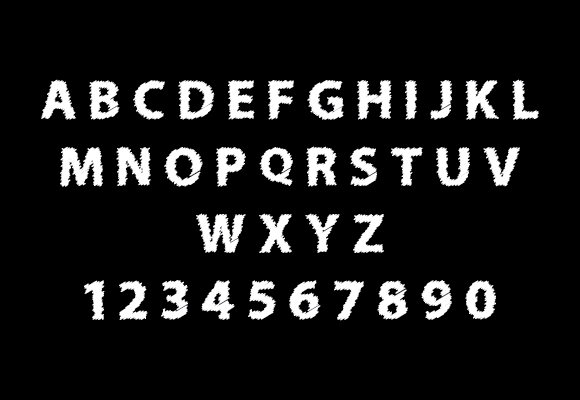
Introduction to Rafsan Font Font
Fonts play a crucial role in design, and the Rafsan Font font is a typeface that brings both character and versatility to any project. Whether you’re working on a branding project, a website, or a print design, the Rafsan Font font offers a unique style that can elevate your work.
Rafsan Sketched Scribe is a striking, modern decorative font inspired by the scribe effect.
Add it confidently to your creative projects and notice how it makes them stand out from the crowd .
Key Features of Rafsan Font Font
Why Choose Rafsan Font Font?
The Rafsan Font font is more than just a typeface – it’s a design tool that helps you communicate your message with style and clarity. Its unique character set and versatile design make it suitable for a wide range of applications, from elegant invitations to bold headlines.
With its carefully crafted letterforms and balanced proportions, the Rafsan Font font ensures readability and visual appeal across all mediums.
What makes Rafsan Font font special?
The Rafsan Font font stands out with its unique design, exceptional readability, and versatility across various design applications.